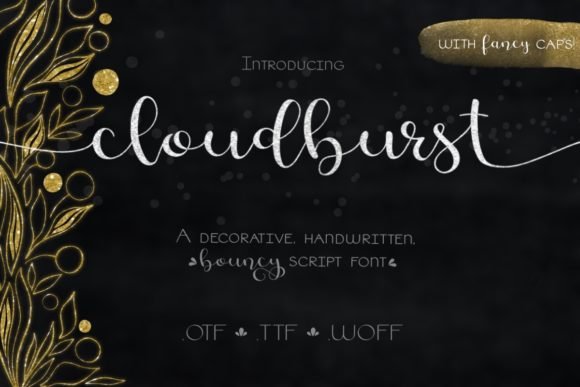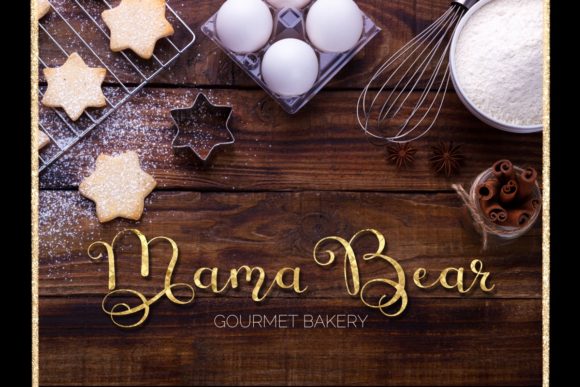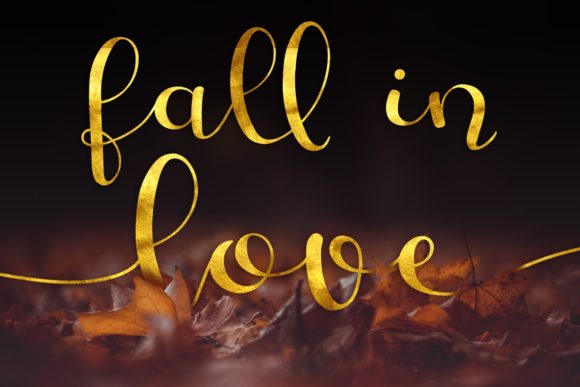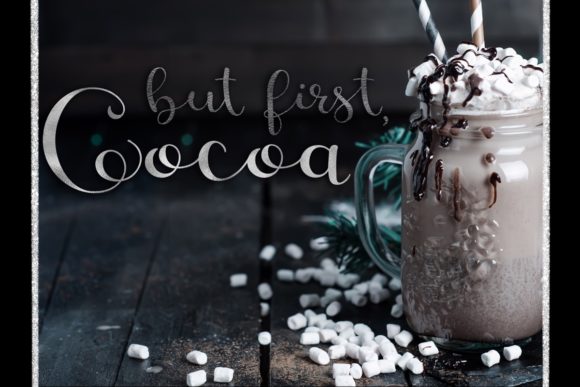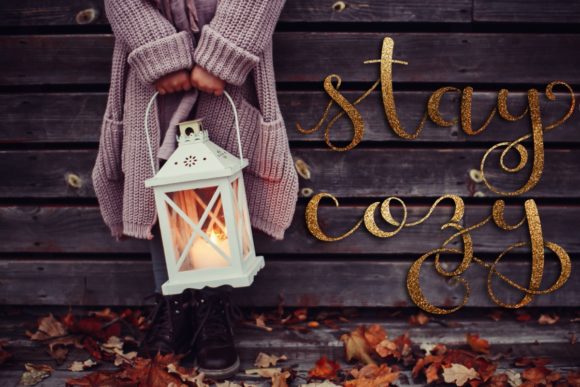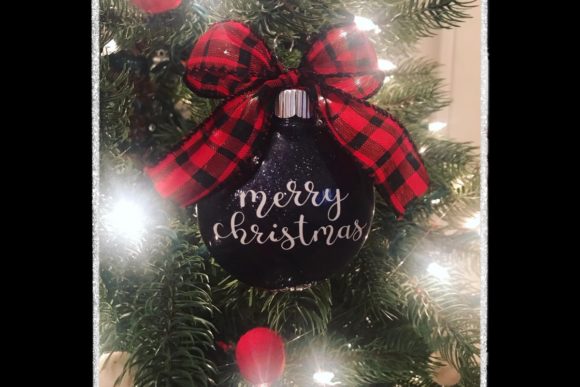
The Perfect Storm of Creativity: Introducing Cloudburst Font
Have you ever stared at a blank page, waiting for inspiration to strike? The cursor blinks, taunting you to start creating, but the words refuse to flow. It’s moments like these that a special font can be a game-changer. Enter Cloudburst Font, a refined script font designed to bring elegance and sophistication to any project.
Whether you’re a seasoned designer or a hobbyist, Cloudburst Font is an invaluable addition to your toolkit. Its intricate details and PUA encoding make it a joy to work with, allowing you to tap into its full potential and create truly stunning designs. With Cloudburst Font, the possibilities are endless, and your creativity can finally run wild.
Key Features of Cloudburst Font
- Size: The font family includes 8 styles, ranging from Thin to Black, each with 6 weights (Light, Regular, Medium, Demi, Bold, and Extra Bold) and 2 widths (Normal and Condensed).
- Unique Characteristics: The font features a dynamic, hand-drawn feel with a mix of geometric and organic elements, giving it a distinctive and modern look.
- Language Support: Cloudburst Font supports a wide range of languages, including Latin, Cyrillic, Greek, and many non-Latin scripts.
- Font Metrics: The font’s x-height is designed to be around 50% of the cap height, making it suitable for use in body text and other applications where readability is important.
Cloudburst Font Review
I recently had the chance to work with Cloudburst Font, and I’m excited to share my thoughts on it. ✨ The font’s unique blend of modern and vintage elements caught my eye from the start. The script-like connections between letters create a sense of fluidity that adds a touch of elegance to any design.
- ✨ The font’s flexibility makes it suitable for a wide range of applications, from branding to editorial content.
- ✨ The included weight variations offer plenty of options for designers to experiment with different styles and moods.
- ✨ The font’s readability is excellent, making it easy to use in large blocks of text.
However, there are some limitations to consider: ⚠️ The font may not be ideal for use in very small sizes, as the script-like connections between letters can become difficult to read at extremely small sizes.
Overall, I think Cloudburst Font is a solid choice for designers looking for a unique and versatile font. While it may have some limitations, its strengths make it well worth considering for your next project.
Cloudburst Font Practical Application Guide
Getting Started with Cloudburst Font
The Cloudburst font is a versatile and modern sans-serif font that can be used in various graphic design applications. To get started, ensure you have the font installed on your computer or have access to it through a cloud-based font service.
Tips for Getting the Most Out of Cloudburst Font
Use Cloudburst font for headings and titles to create a modern and clean look. Experiment with different font sizes and colors to create visual hierarchy. Avoid using Cloudburst font for large blocks of text, as it may become difficult to read.
Cloudburst font is ideal for digital designs, such as website headers, social media graphics, and app interfaces. It’s also suitable for print designs, such as business cards, brochures, and posters.
Alternatives to Cloudburst Font for Designers
Great Vibes is a beautiful, elegant script font that is perfect for creating a sense of luxury and sophistication. It features swashes and ligatures that make it ideal for use in invitations, wedding stationery, and other high-end designs. Great Vibes has a more refined and polished look compared to Cloudburst Font, making it suitable for formal and professional projects.
Alex Brush is a handwritten font that features a mix of elegant and casual elements. It is perfect for use in designs that require a touch of whimsy and personality. Alex Brush has a more relaxed and natural feel compared to Cloudburst Font, making it suitable for use in creative and artistic projects.
Q: What is the recommended font size for optimal readability with Cloudburst?
For optimal readability, we recommend using Cloudburst at font sizes between 12pt and 24pt. However, the ideal font size will depend on the specific design requirements and the intended use of the font.